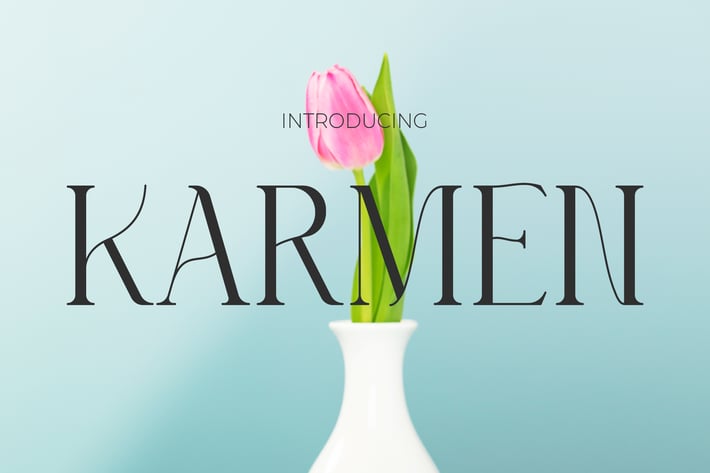
Karmen - Modern Elegance Font
KARMEN
KARMEN is a modern display typeface that blends minimal elegance with soft contrast and clean structure. Designed with a graceful rhythm, tall x-height, and spacious letterforms, it speaks softly yet confidently. Its delicate terminals and gentle curves create a light, feminine aesthetic that feels both luxurious and grounded.
This font has a naturally refined and calm vibe, ideal for beauty brands, wedding invites, interior design visuals, and other editorial-style graphics. KARMEN’s balance of soft edges and straight forms gives your work a professional and aesthetically-pleasing tone.
Whether you're creating a branding suite for a boutique skincare line, a chic wedding suite, or a Pinterest-worthy Instagram feed, KARMEN adds the softness and style needed to emotionally connect with modern audiences. Its elegant legibility makes it ideal for high-end packaging, editorial layouts, or home & lifestyle ads where charm and polish matter.
KARMEN is made for designers, lifestyle creators, and studios who want to communicate sophistication with clarity.
Key Features
Why Creatives Love KARMEN :
- Modern minimalist feel with soft high-contrast letterforms
- Elegant and easy-to-read for headers, logos, quotes, and packaging
- Graceful curves for a clean yet emotional tone
- Beautiful for fashion, skincare, lifestyle, or wedding-related projects
- High-end finish, smooth transitions, and balanced proportions
Give your designs a voice that feels light, stylish, and lasting. KARMEN makes branding soft and strong—like your most trusted product or signature scent. Perfect for the modern creator, this is the elegant upgrade your next design project deserves.